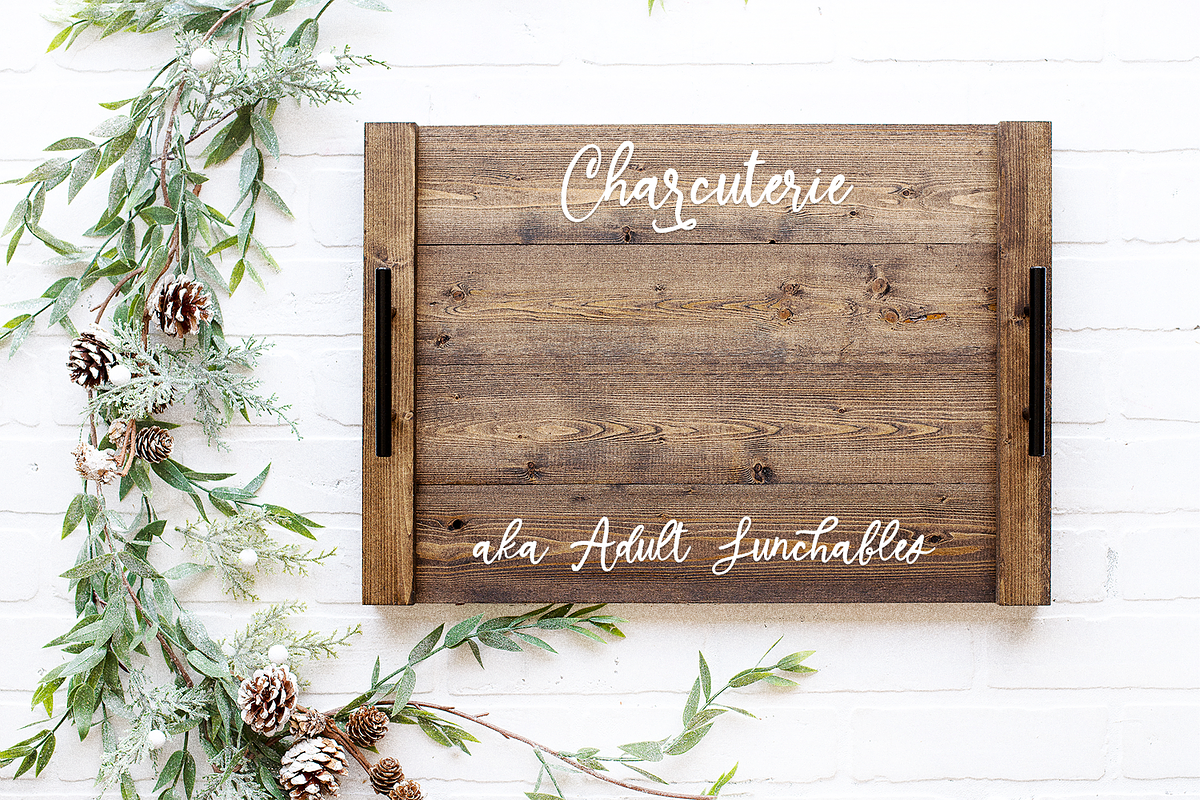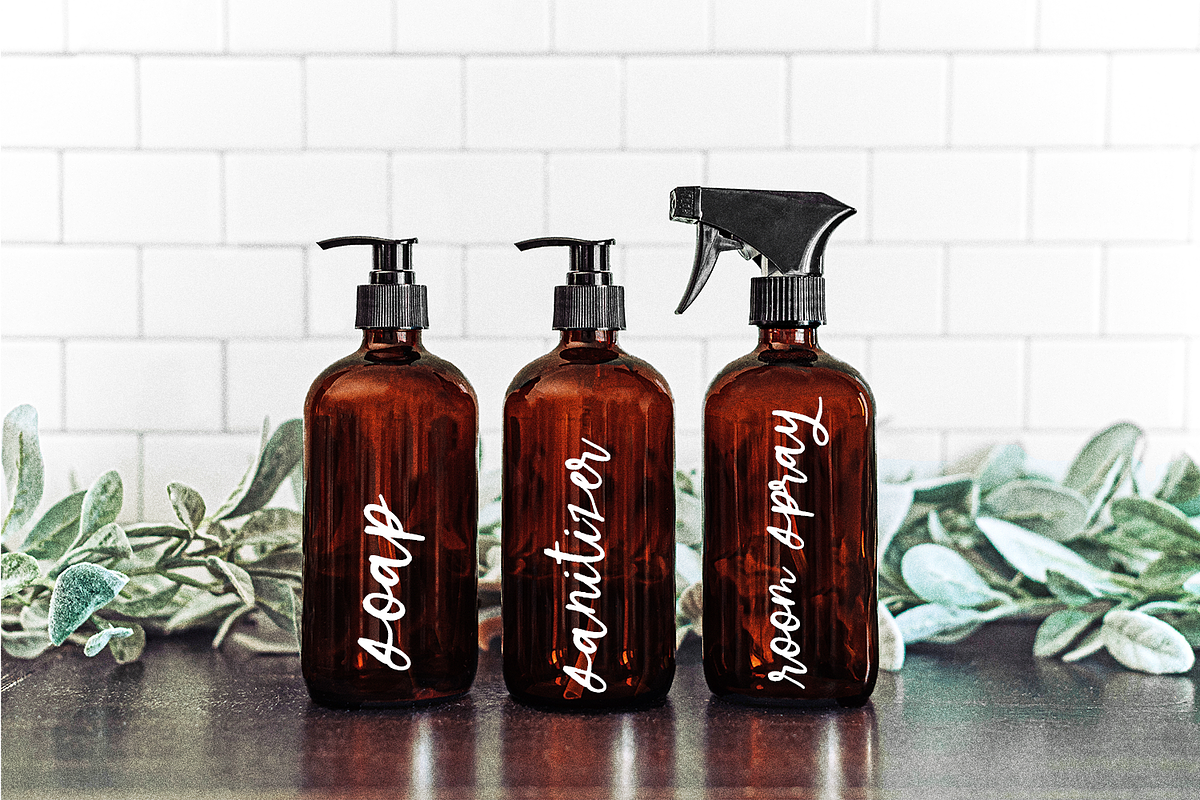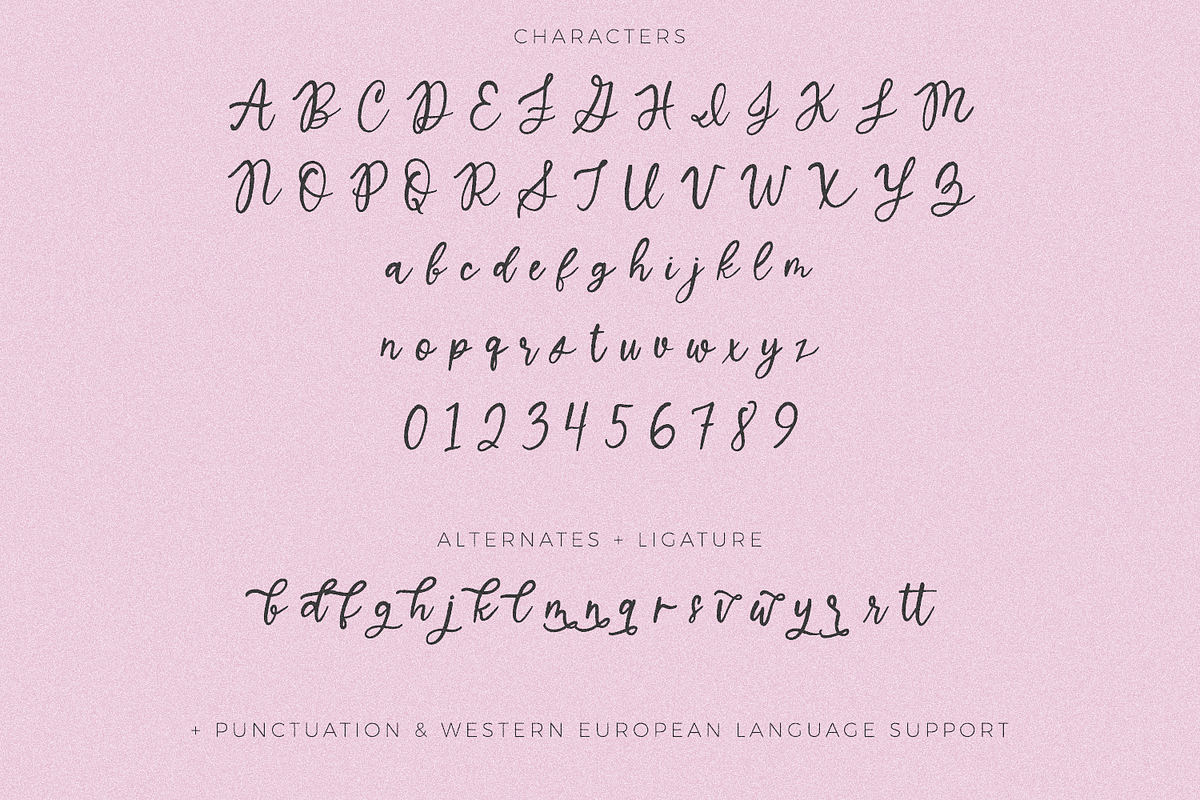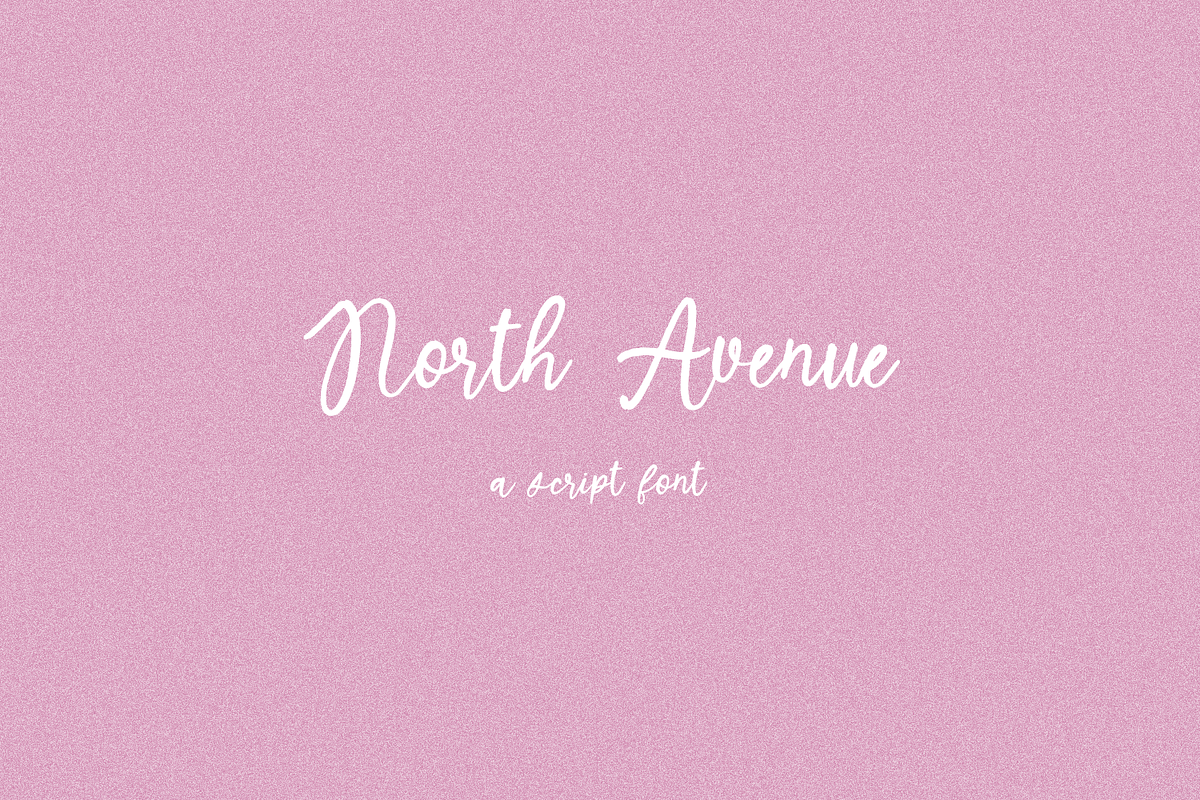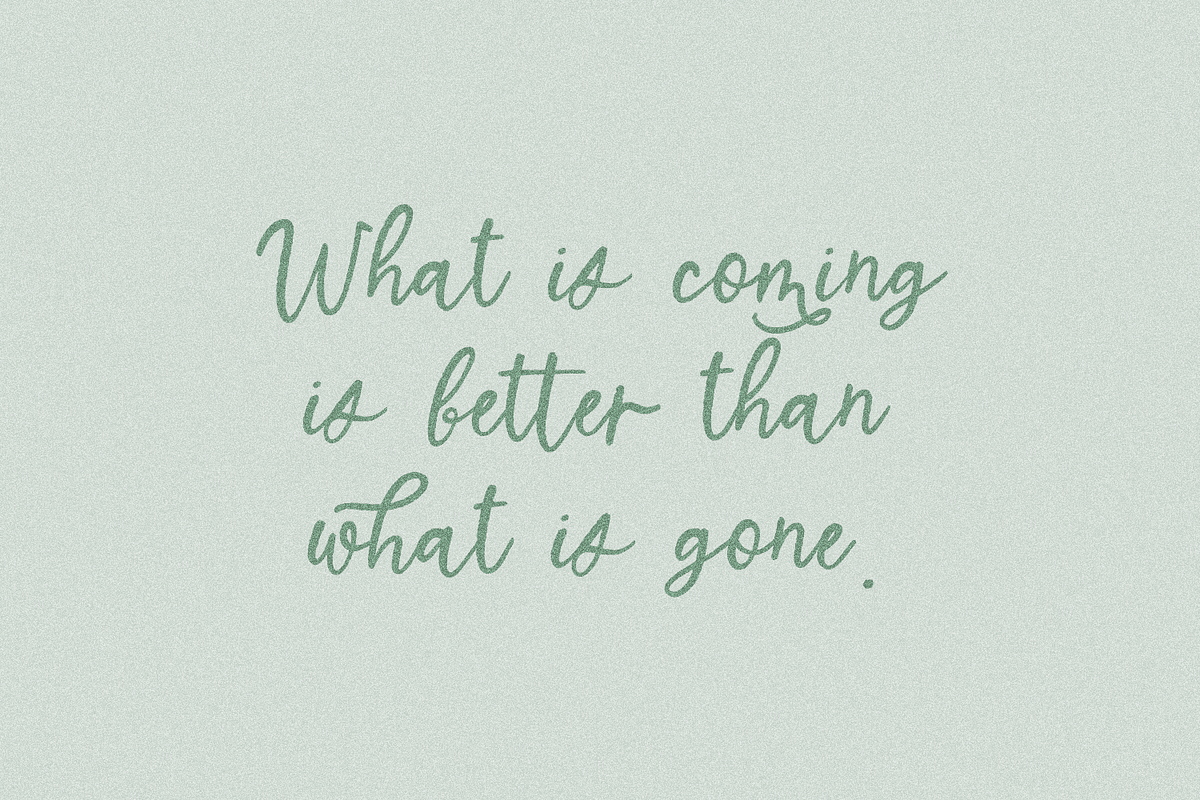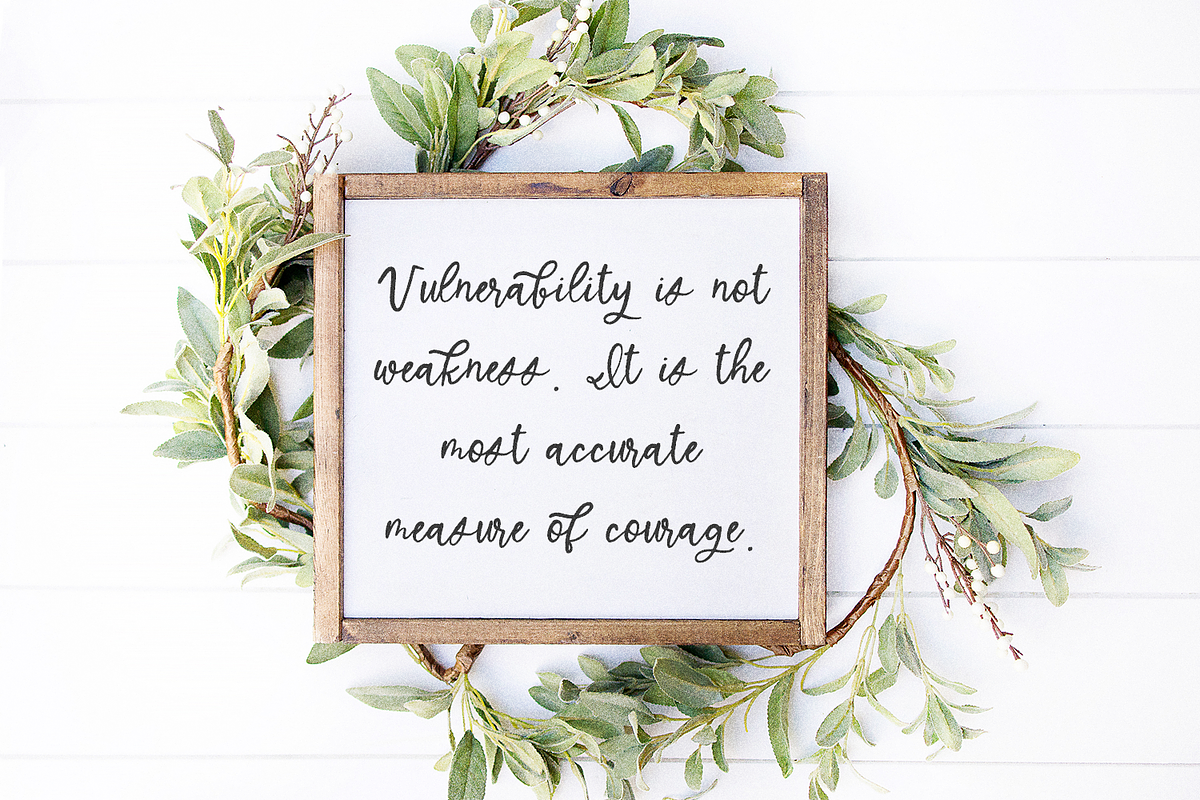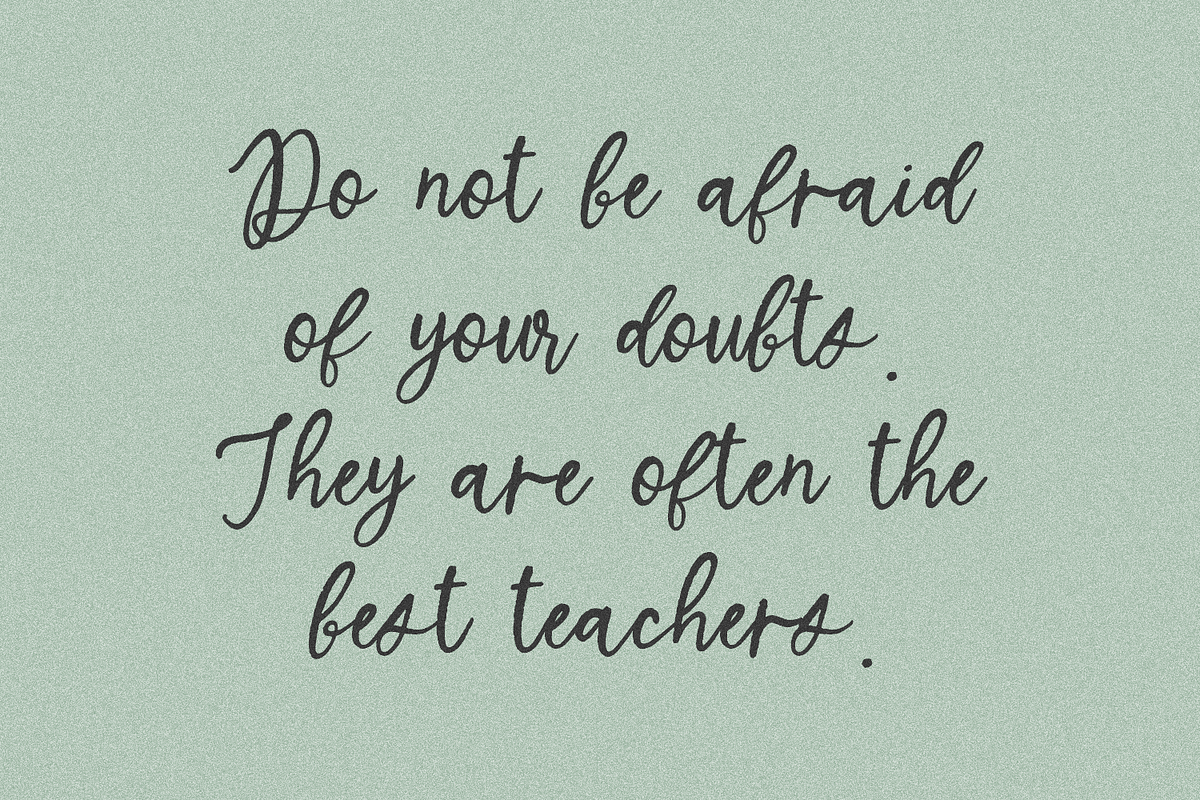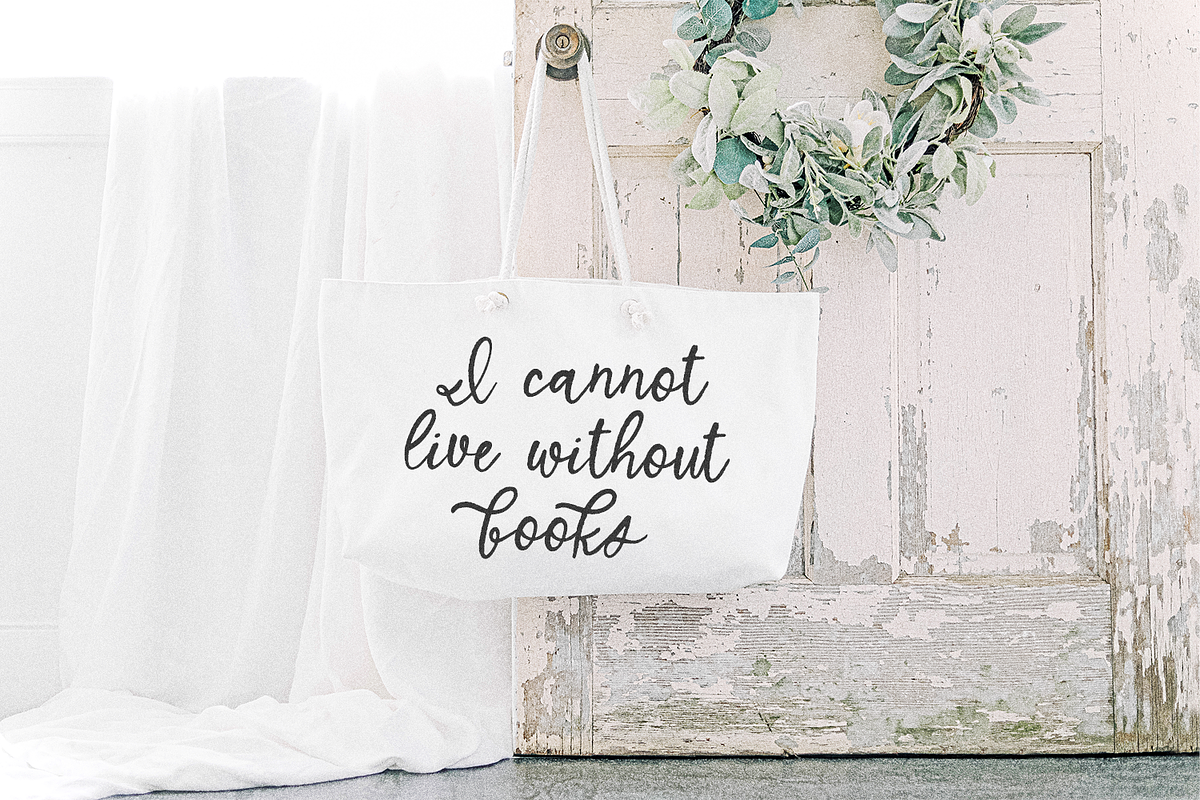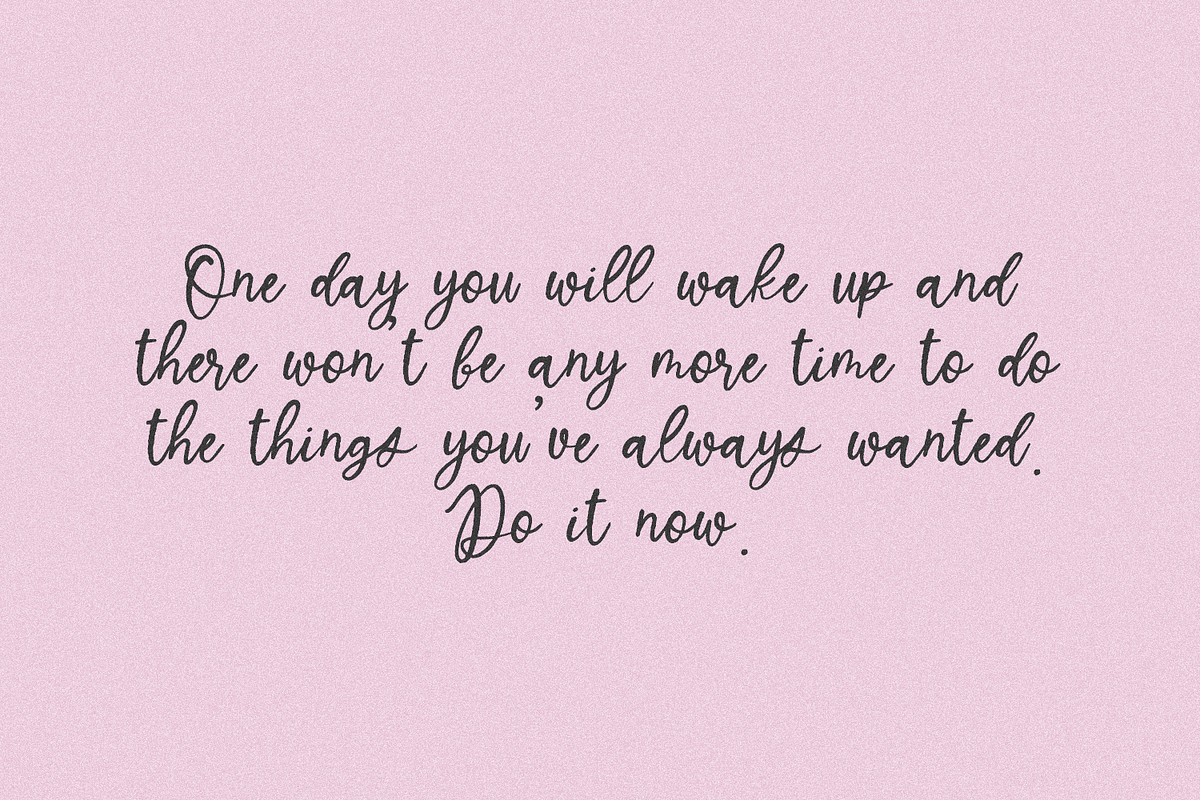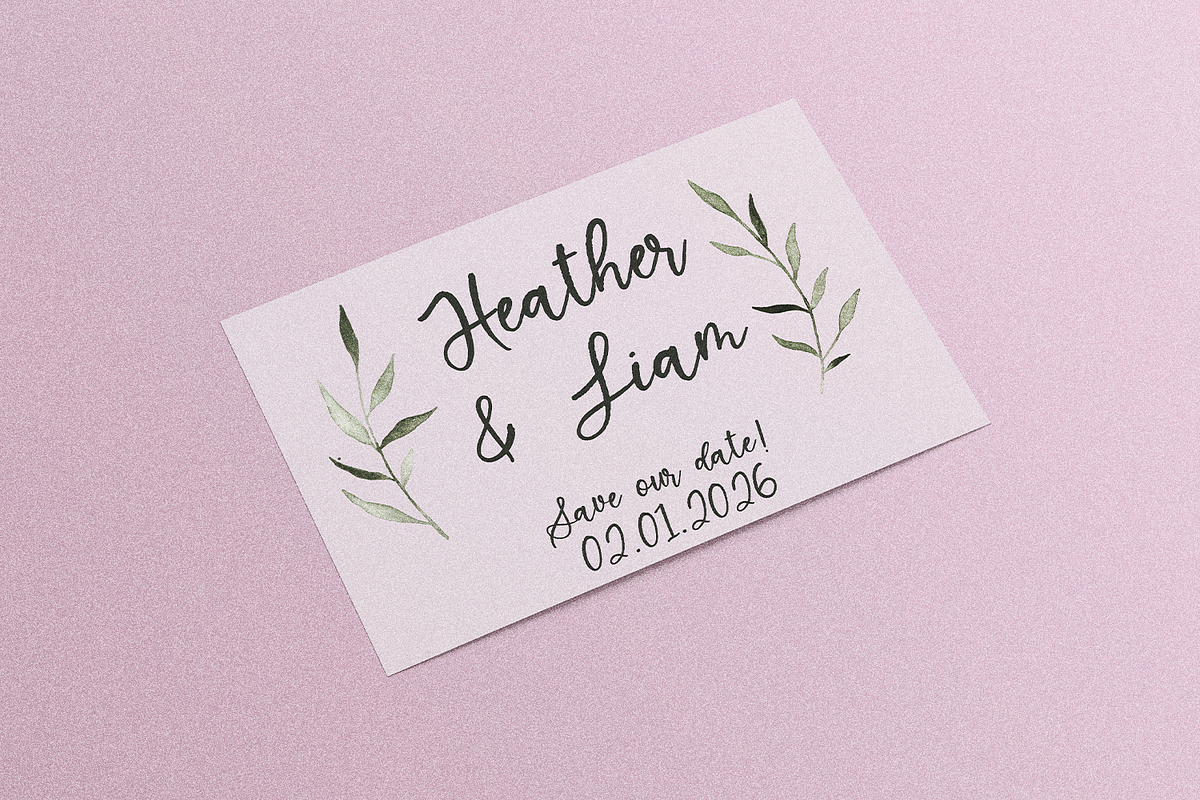
North Avenue Script
North Avenue is a cursive handwritten font. North Avenue includes alternate characters so you can customize your text to make it look slightly more flourished. This font is perfect for logos & branding, greeting cards, painted banners, digital planners, note-taking apps, Canva, Cricut projects, Silhouette projects, designing SVG files, laser cutting projects, & more.
North Avenue Script includes:
- full upper + lowercase characters
- numbers + punctuation
- 19 alternates - b, d, f, g, h, j, k, l, m, n, q, r x3, s, v, w, y
- 1 ligature - tt